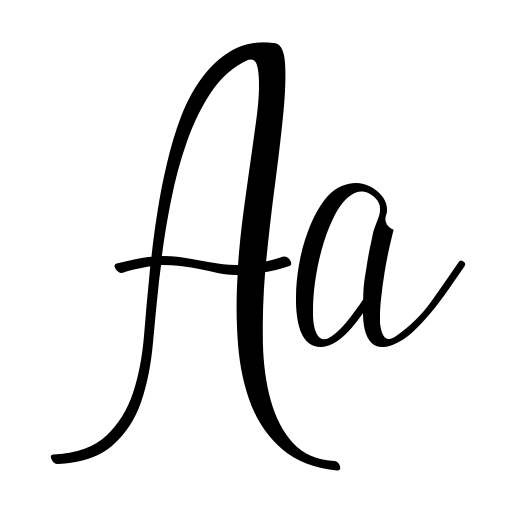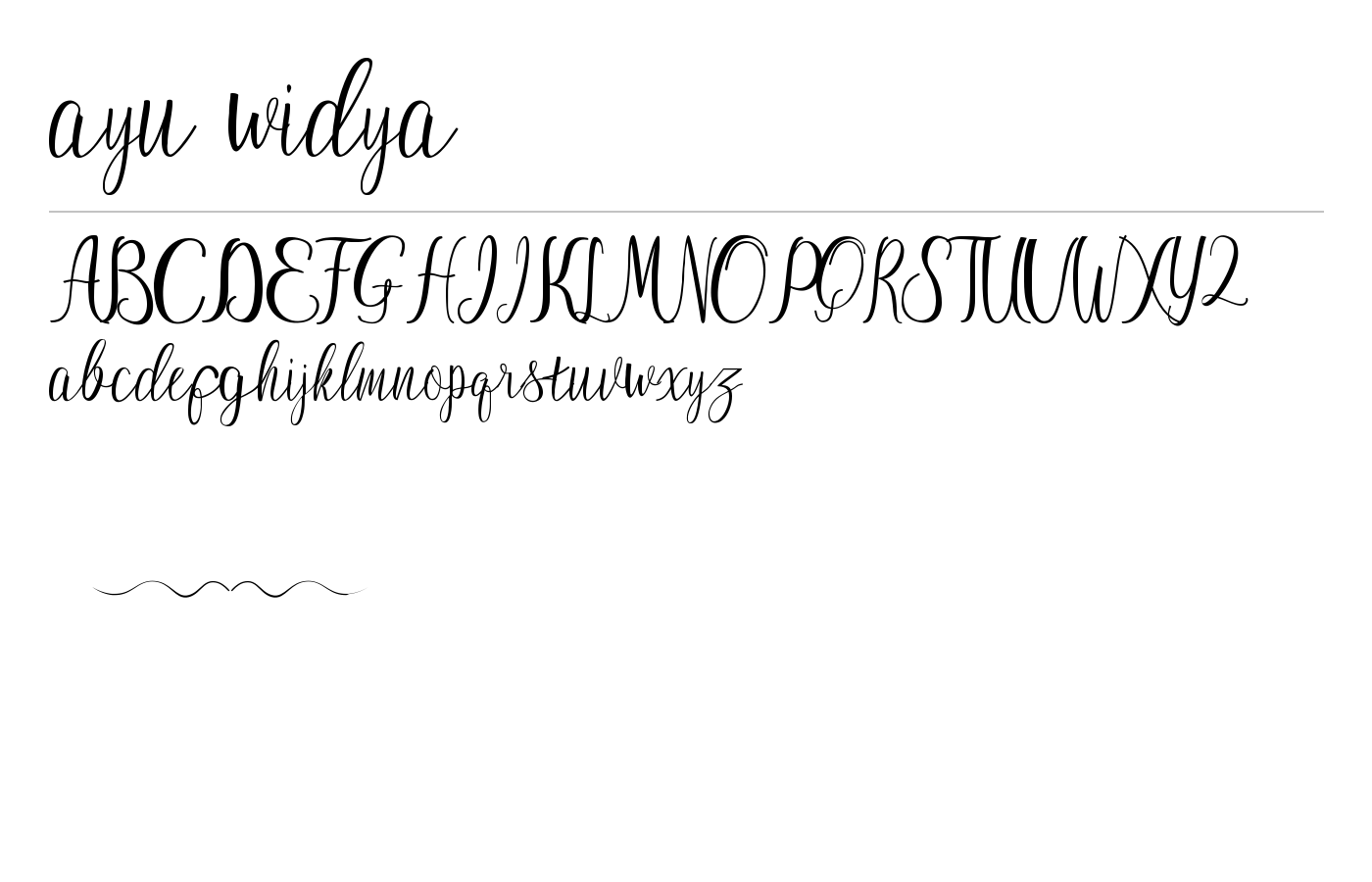
Ayu Widya is an elegant and delicate script font characterized by its tall, slender letterforms and graceful curves. Its light weight and fluid strokes give it a handwritten, sophisticated feel, making it perfect for invitations, branding, and feminine design projects where a touch of refinement and charm is desired. This font works best in decorative, display uses rather than body text, bringing a stylish and artistic flair to any design.
ayu widya Font
About ayu widya Font